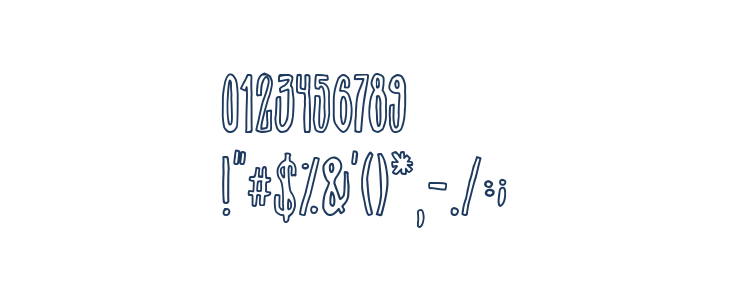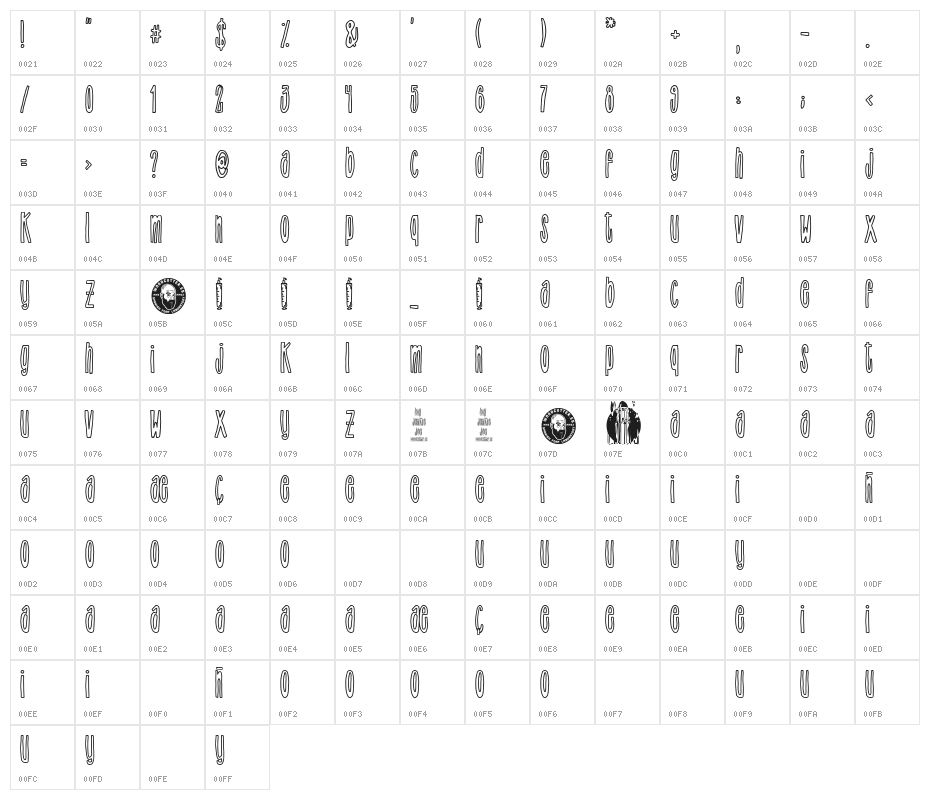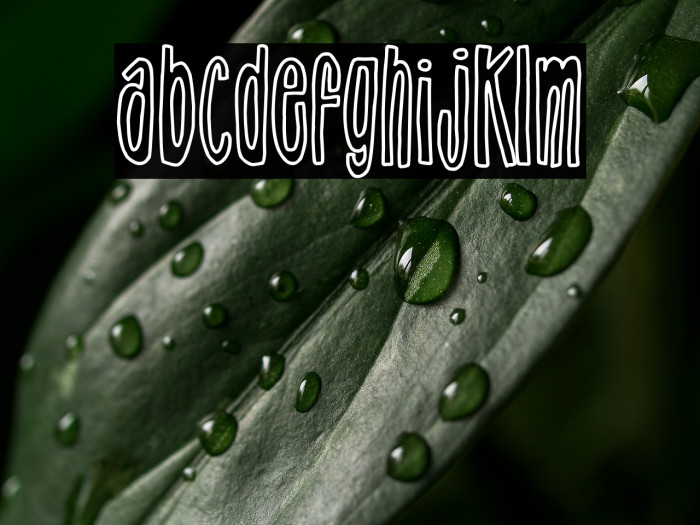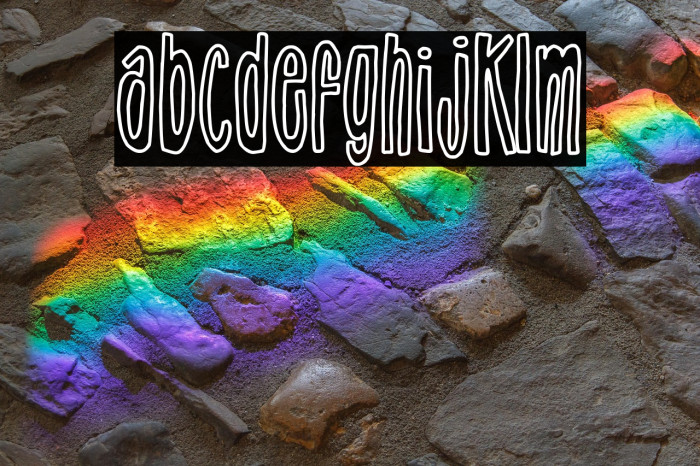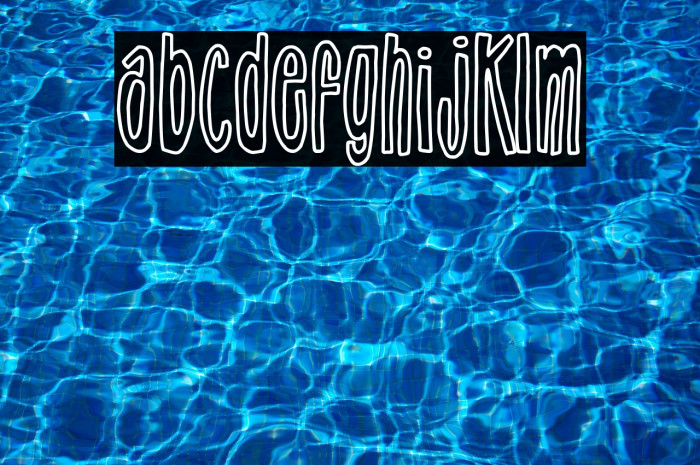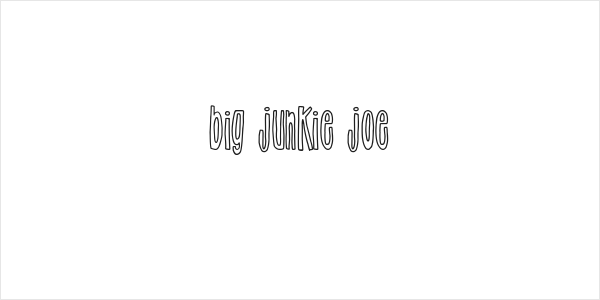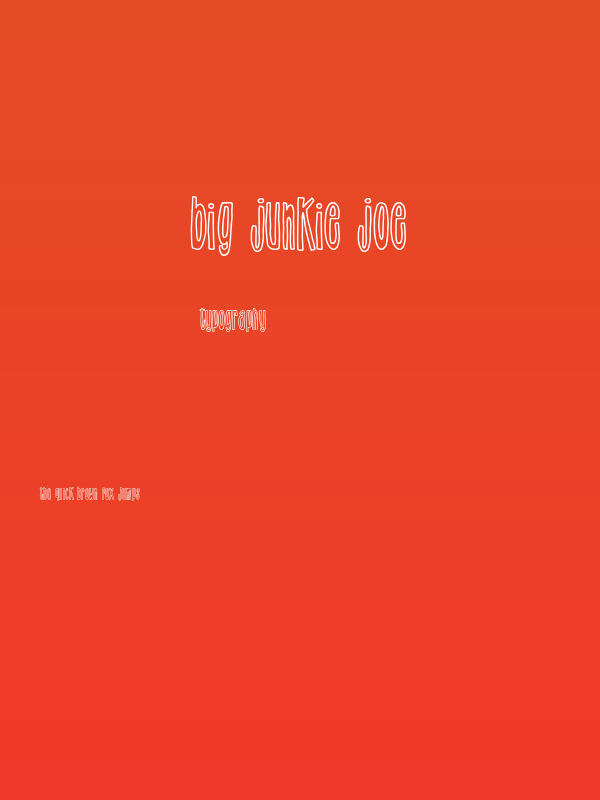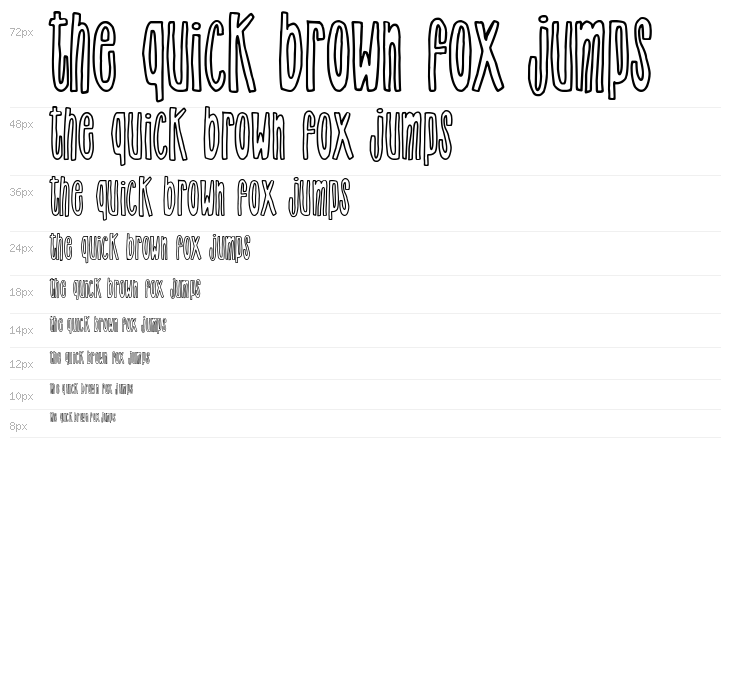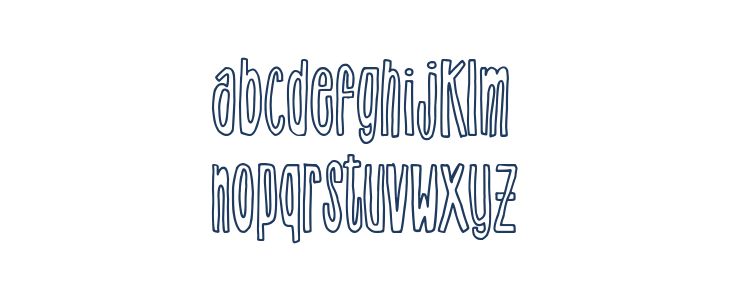
big Junkie Joe Font
big Junkie Joe Description
This font features a playful and quirky design with elongated, narrow characters that have a hand-drawn appearance. The letters are outlined, giving them a bold and distinctive look. The uppercase and lowercase letters maintain a consistent style, with a slightly irregular, wavy form that adds to the font's whimsical charm. The numbers and special characters follow the same design principles, ensuring a cohesive appearance across all elements. This font is ideal for projects that require a fun and informal touch, such as children's books, posters, or creative branding materials.
| Overall Style | Whimsical |
| Proposed Projects | Ideal for children's books, playful posters, creative branding, and informal invitations. |